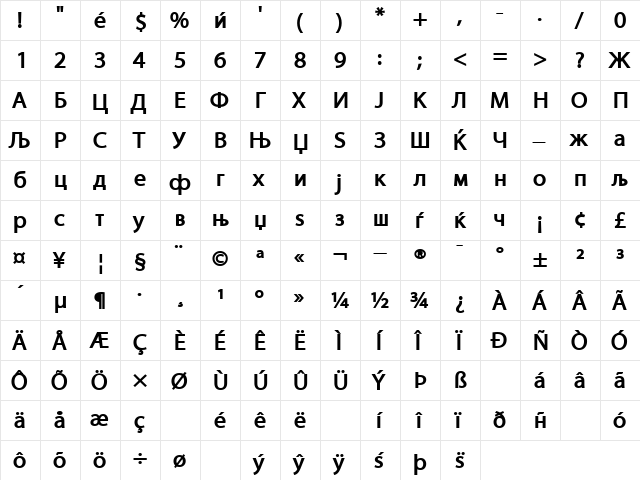
MMyriad Roman Bold
Design Context for MMyriad Roman Typeface
MMyriad Roman is a composed and adaptable typeface that performs quietly and consistently across a wide range of design contexts. Its bold stroke weight gives it real presence on the page.